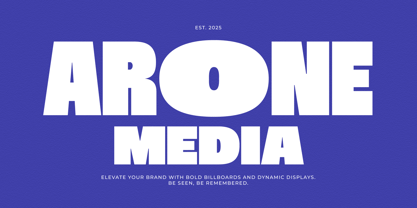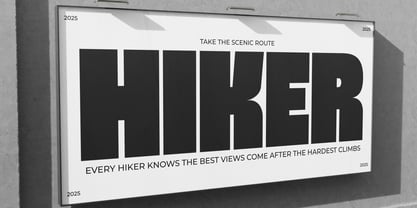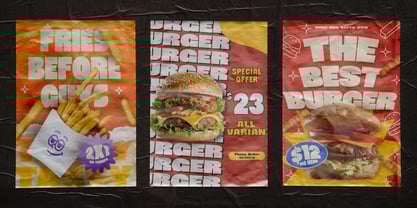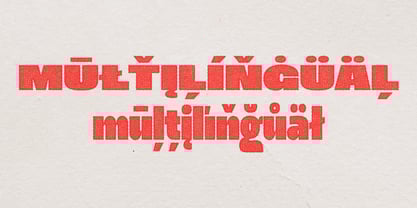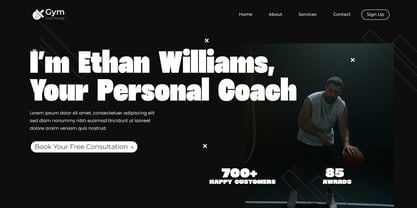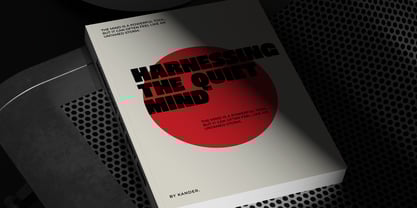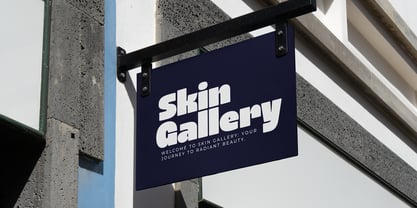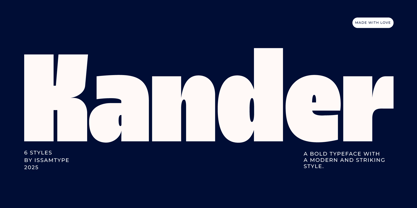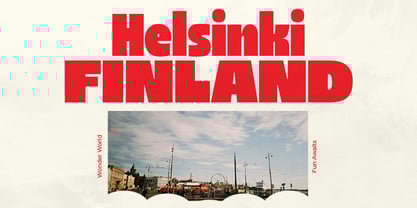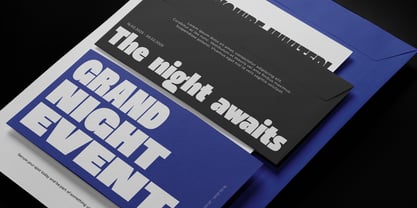
Kander
by Issam Type
The Kander Font Family was designed by Issam Boufelja and published by Issam Type. Kander contains 6 styles and family package options.
Kander is a bold sans-serif typeface with clean, modern shapes. Designed for versatility, it’s ideal for strong, impactful headlines, branding, and sleek designs. With six styles to choose from, Kander adds clarity and confidence to your text.
Kander comes with uppercase letters, numbers, punctuation, alternates, ligatures, and multilingual support, providing versatility for any project.